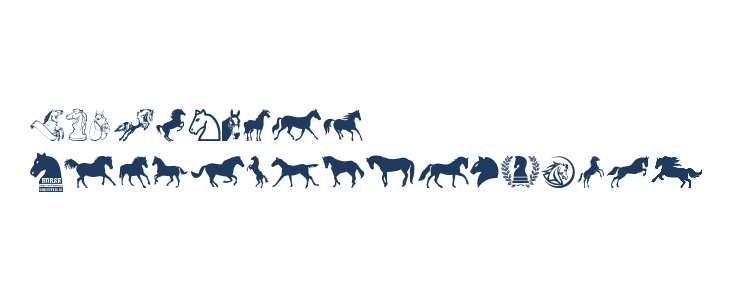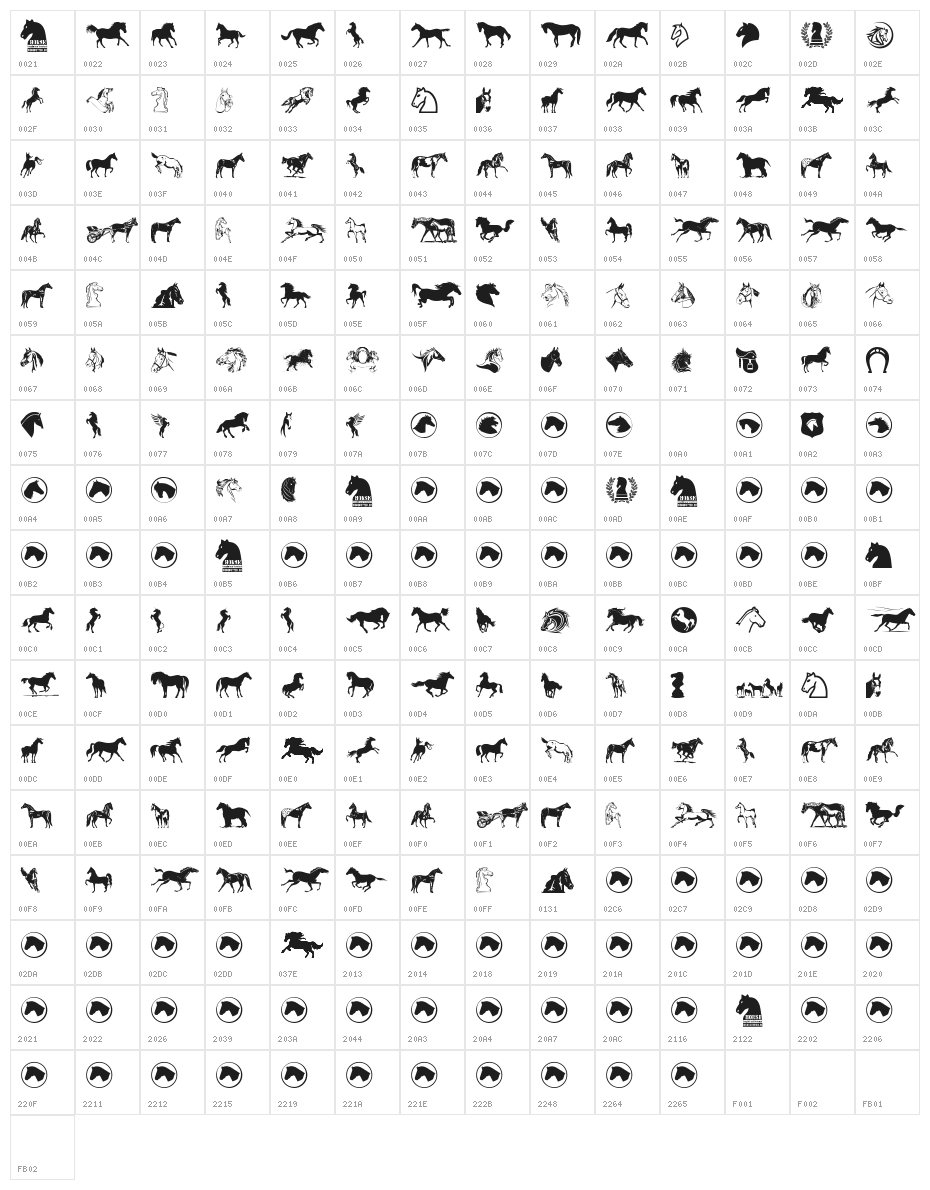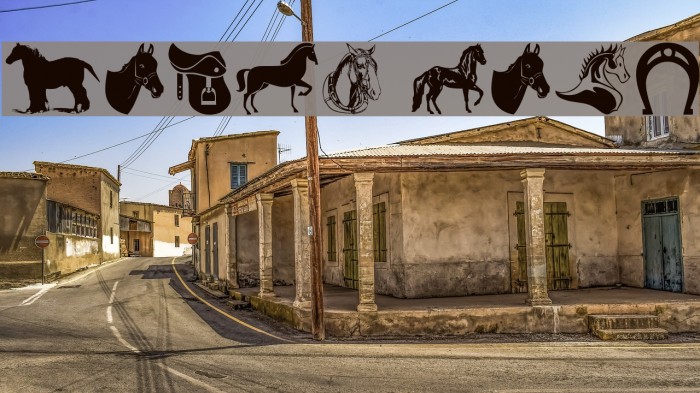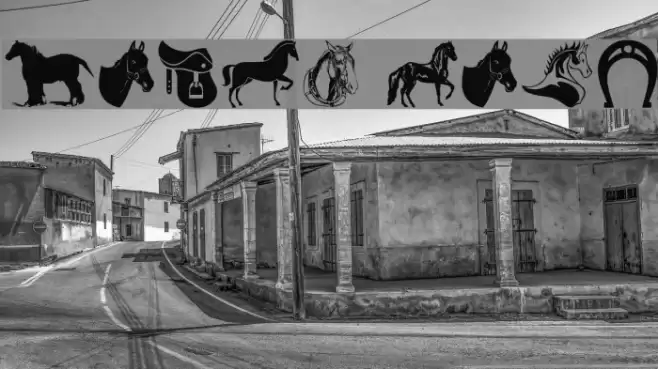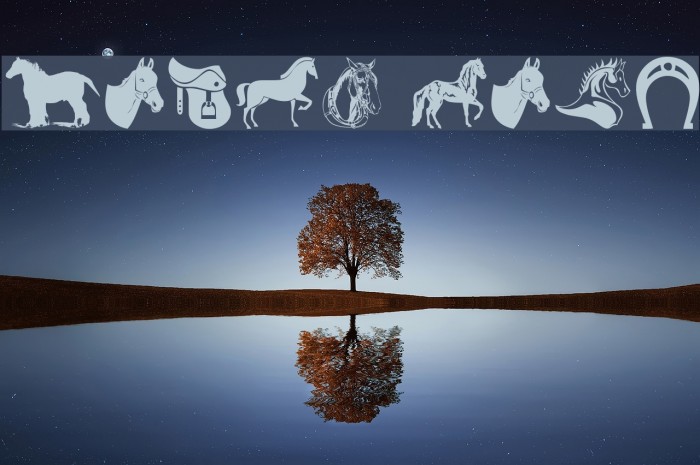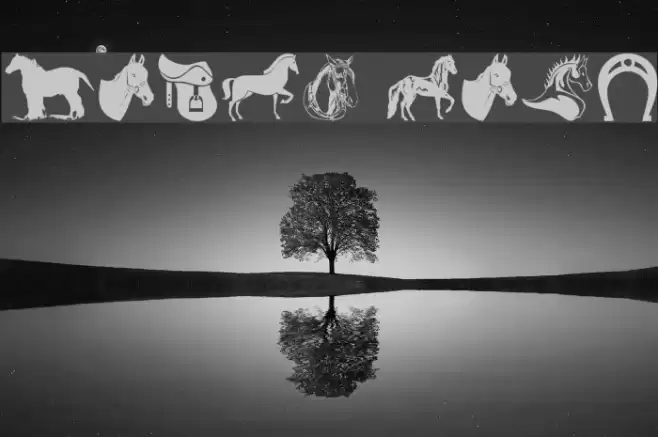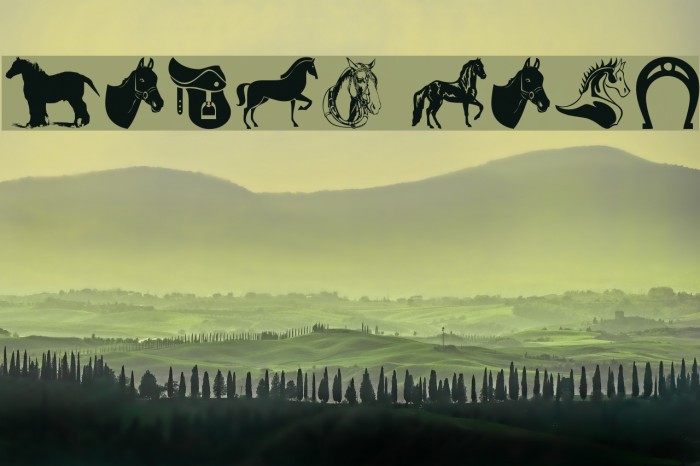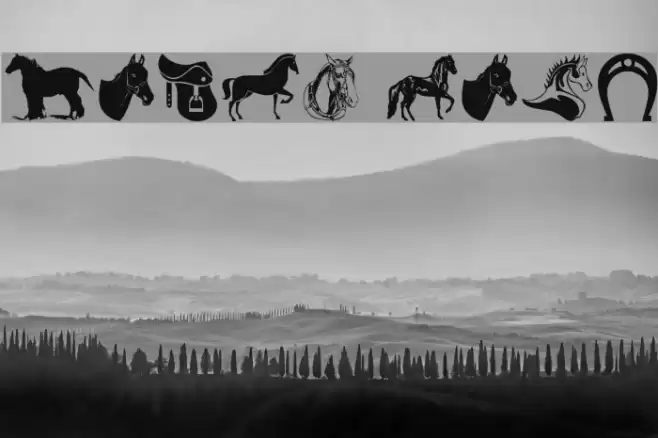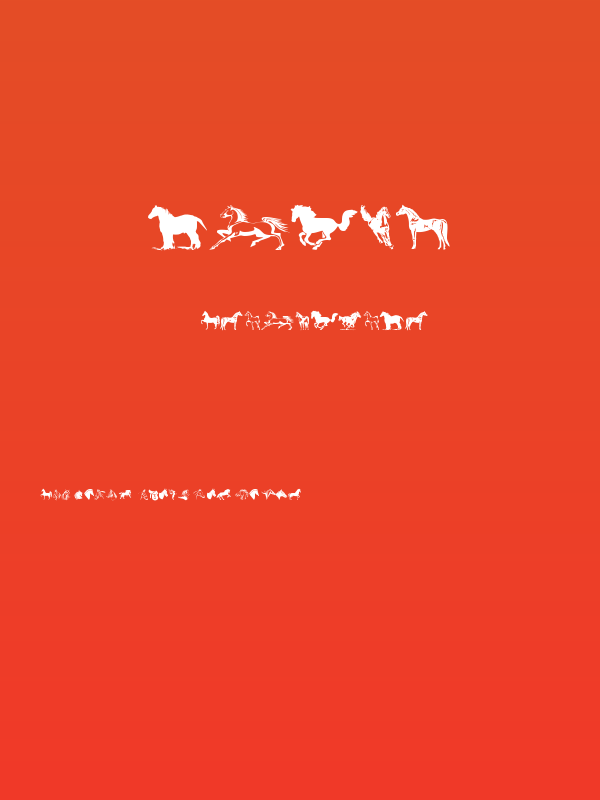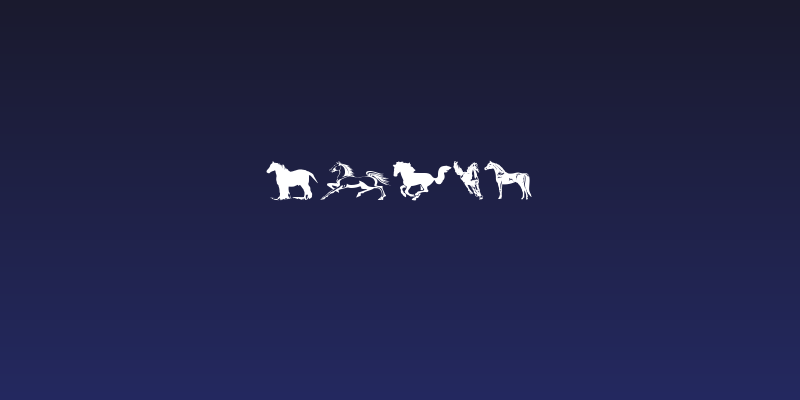
Horse Font
Horse Description
A decorative dingbat set featuring a wide variety of horse-themed silhouettes, illustrations, and icons, including full horses in different poses, horse heads, horseshoes, saddles, and chess knights. The glyphs range from detailed line art to bold, simplified silhouettes, with some including additional elements like wings or laurels.
| Overall Style | Decorative, Thematic |
| Use Case | Logos, Decorative elements, Themed graphics, Icons |
| Proposed Projects | Equestrian event branding, children's book illustrations, logo design for horse-related businesses, themed invitations, decorative borders. |